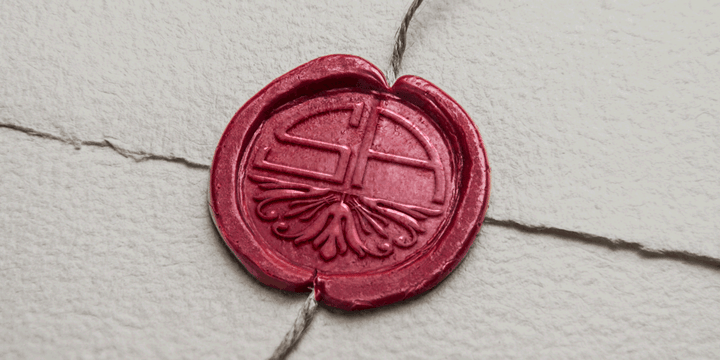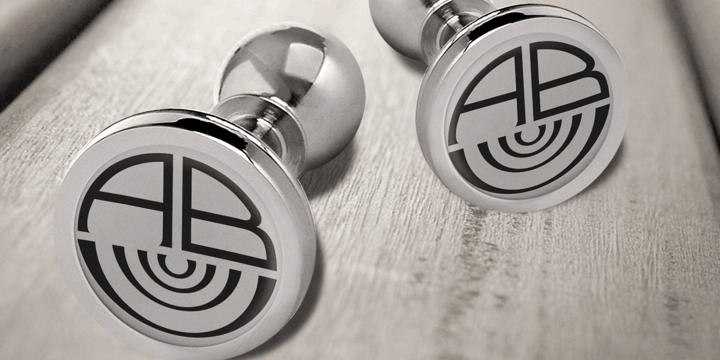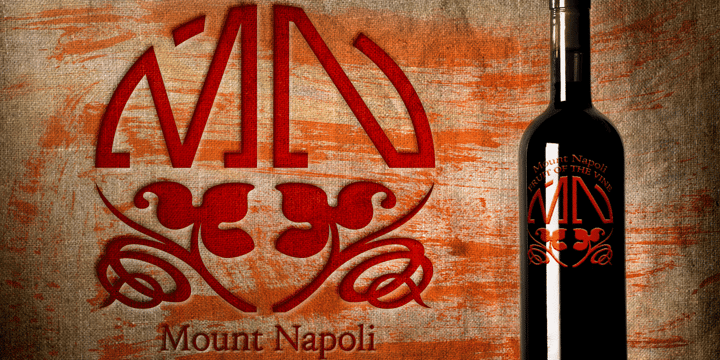
About Semicirculus Monogram
The inspiration source for Semicirculus Monogram is a stylish sans serif letterset, from a vintage embroidery publication, originally intended to adorn handkerchiefs. Ornaments from numerous antique specimen books were combined with the letter set to…